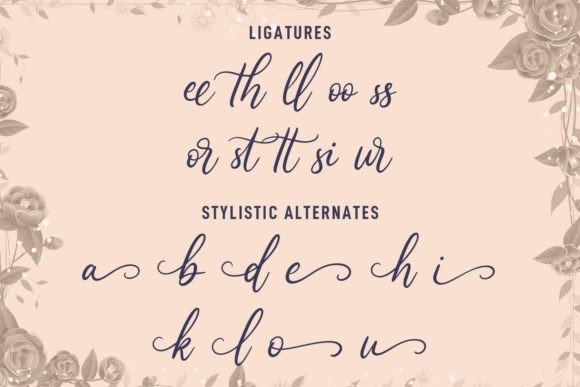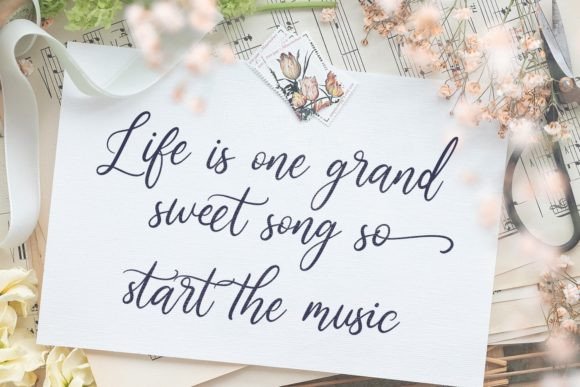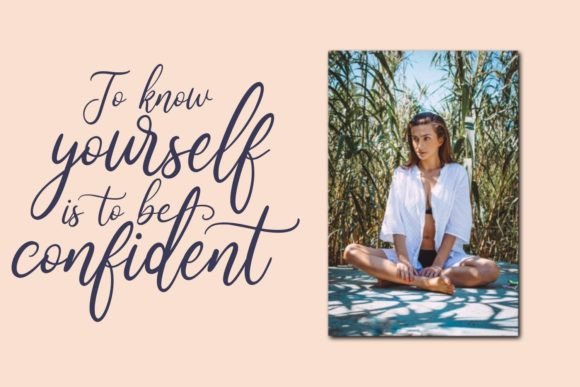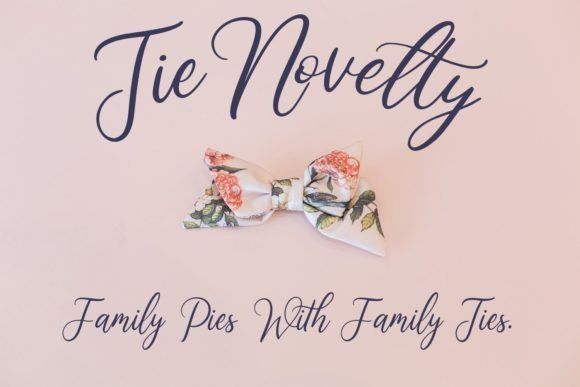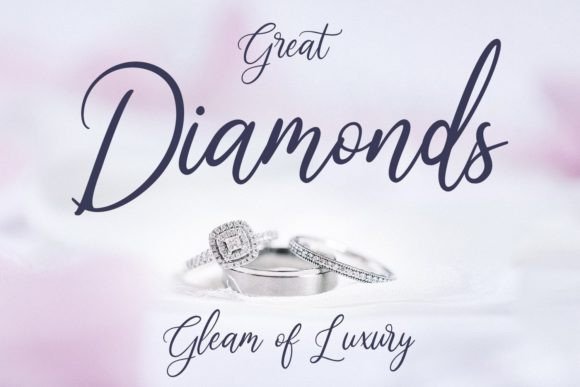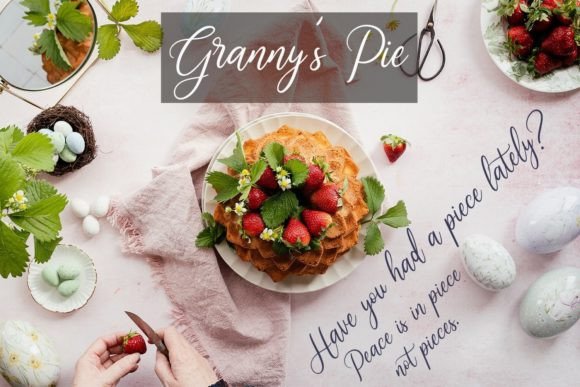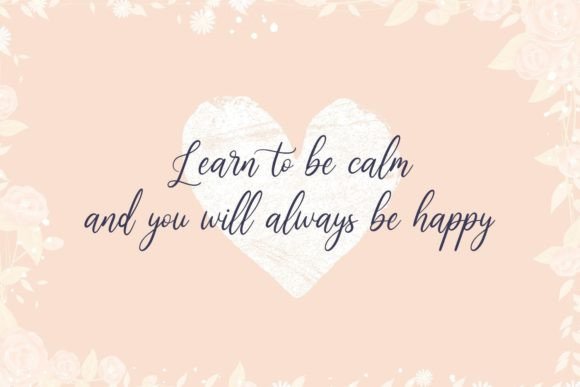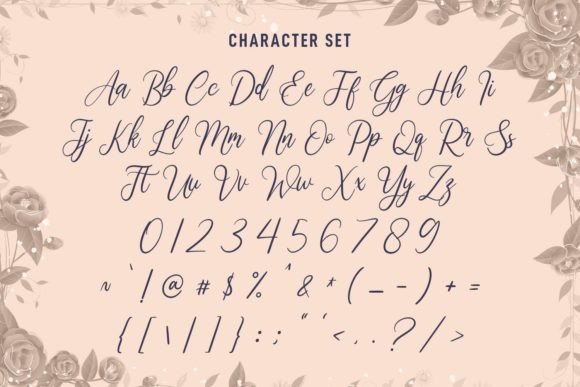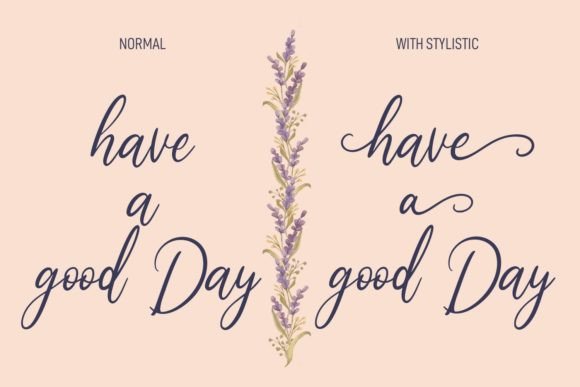
Eiffelish Font
About Eiffelish Font
“Eiffelish” is a beautiful script font designed to bring an elegant and sophisticated touch to your projects. With its light contrast stroke, playful characters, and additional features like ligatures and alternates, this font offers creative flexibility for a variety of design applications.
The beauty and script nature of “Eiffelish” make it well-suited for a range of purposes. Whether you’re working on logo design, social media graphics, movie titles, book titles, or any project that requires a blend of elegance and playfulness, this font is crafted to make your work stunning.
The inclusion of ligatures and alternates in “Eiffelish” enhances its versatility, providing extra creative options for your designs. Additionally, it can serve as a complementary secondary text font when paired with sans or serif typefaces, allowing for harmonious and balanced design compositions.
In summary, “Eiffelish” is more than just a font; it’s a design tool carefully crafted to bring beauty and sophistication to your creative projects. Whether you’re creating logos, titles, or text for various applications, let this script font be the key to making stunning and visually appealing work that captivates your audience.